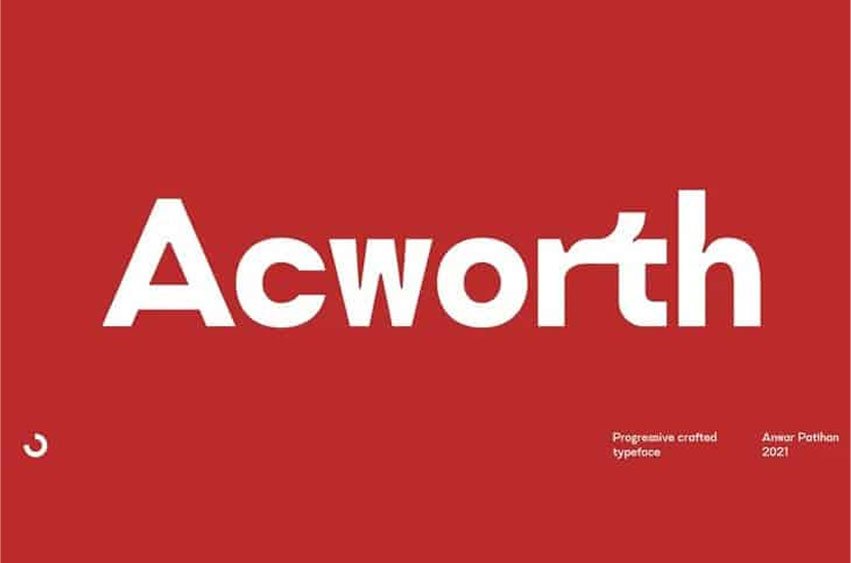
Acworth Font
Acworth Font Sans Serif Font is designed by Jehoo Creative. It’s a contemporary progressive typeface that explores mechanical robustness and dynamism.
Inspired by the advancement of fast-moving technology culture. The characters have an ink trap that makes Acworth very legible and a standout feature, thereby creating a modern versatile form. Making it usable for editorial, graphic design, web look, quotes or as a logo.